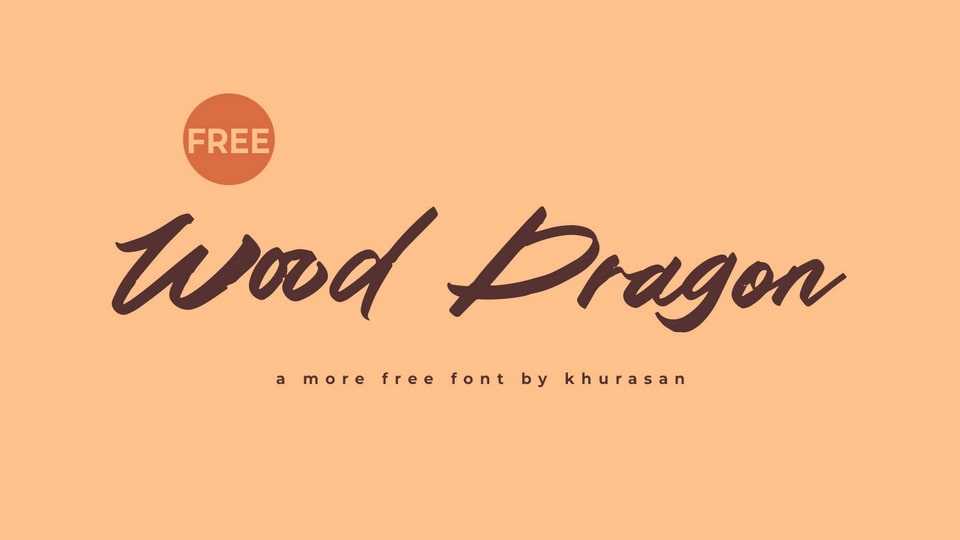
Download Wood Dragon font, a hand-painted brush typeface that brings the authentic charm of artistic brushstrokes to your designs. Each letter in Wood Dragon font is a stroke of craftsmanship, capturing the expressive qualities of hand painting.